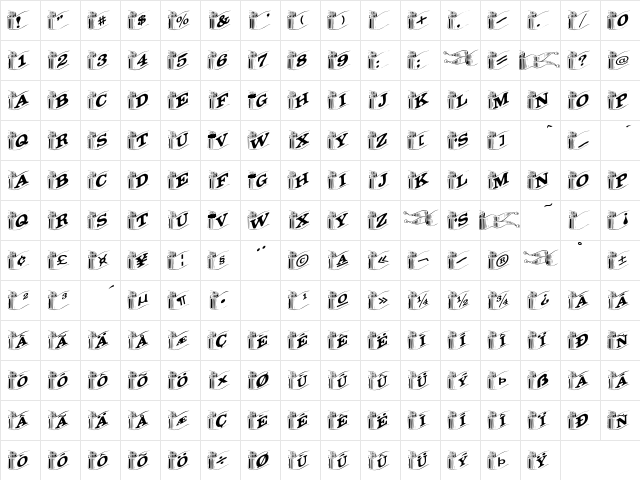
Heraldic Wide Regular
Design Context for Heraldic Wide Typeface
Heraldic Wide is a composed and adaptable typeface that performs quietly and consistently across a wide range of design contexts.